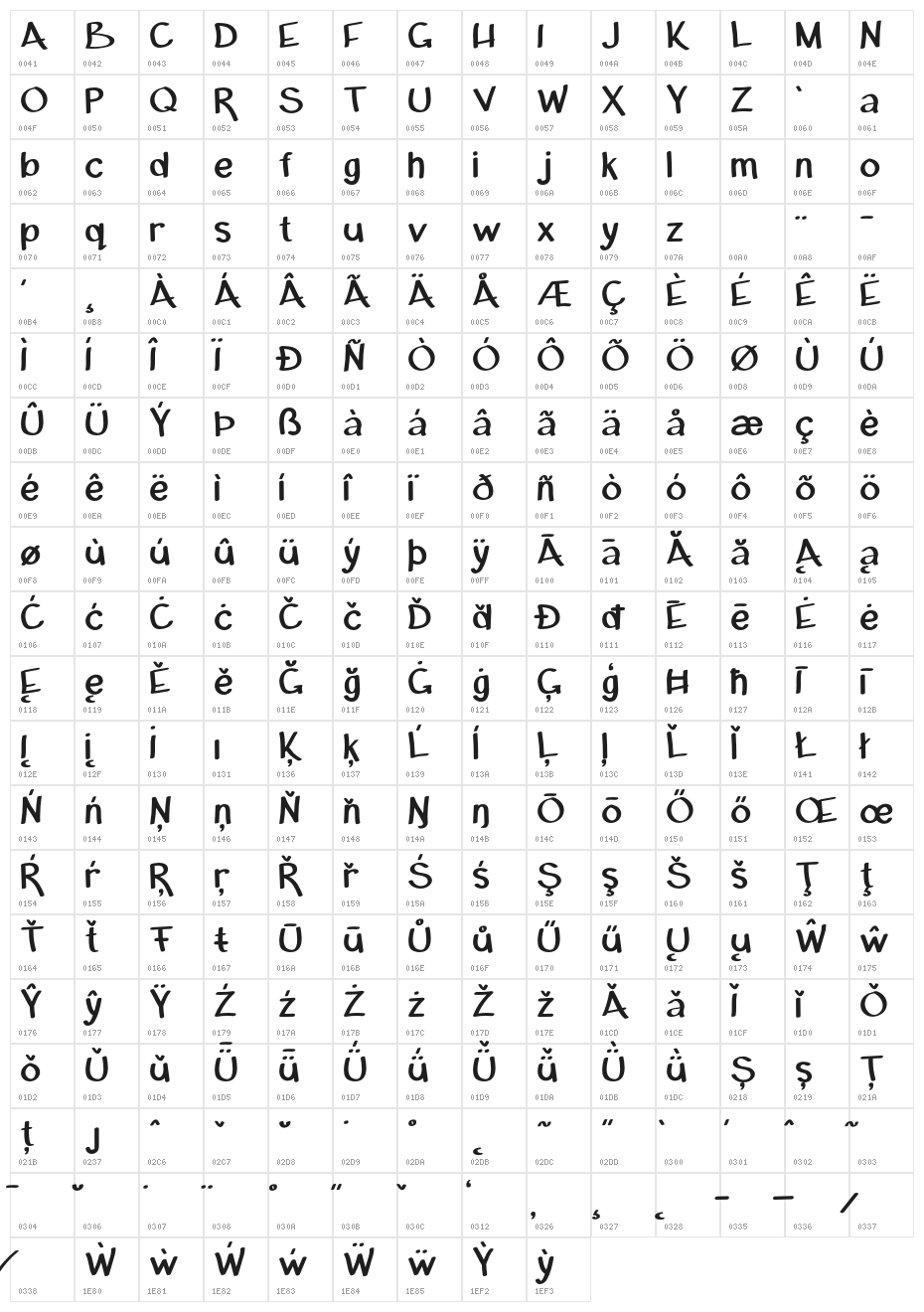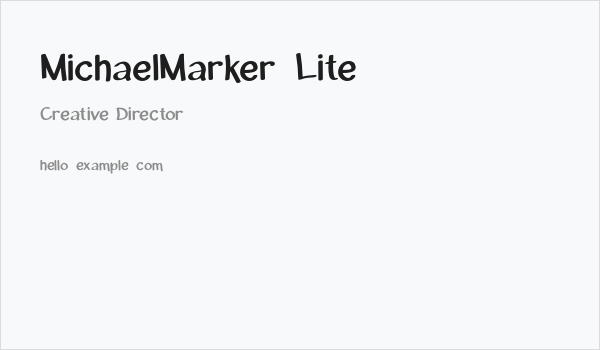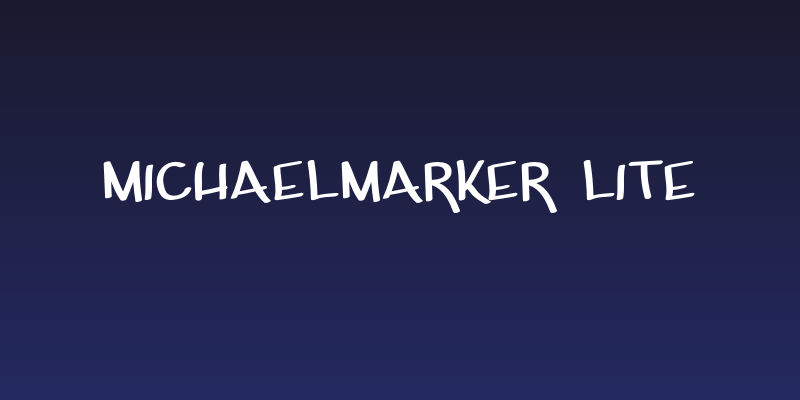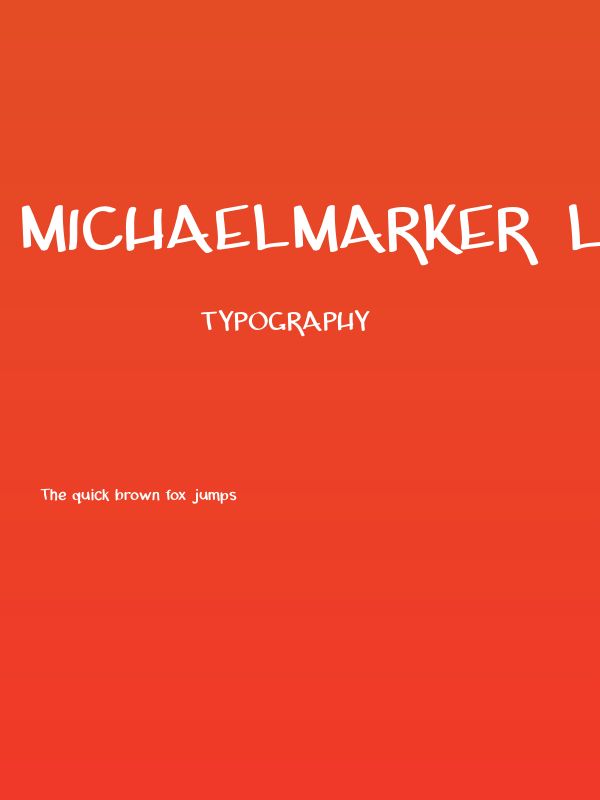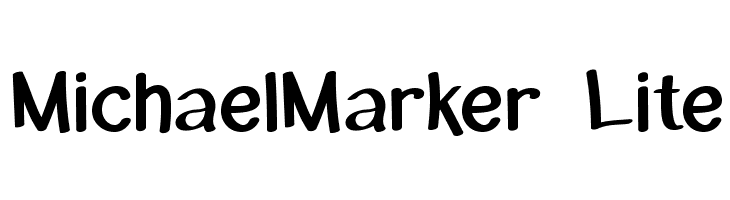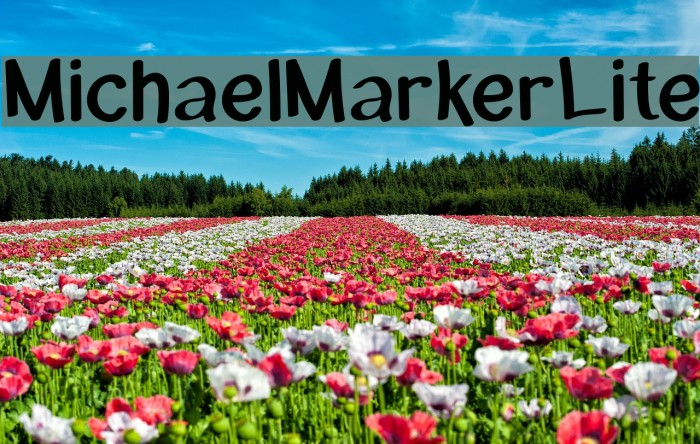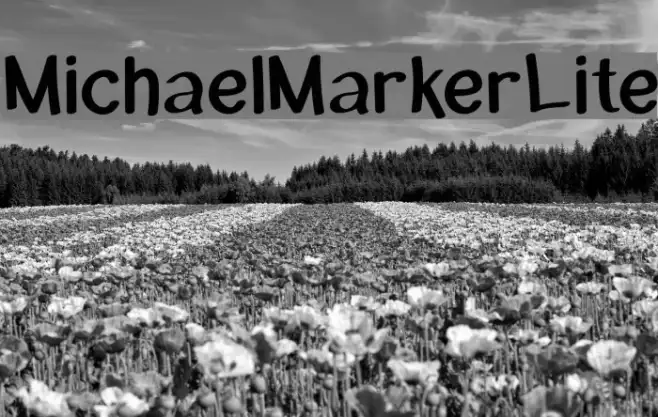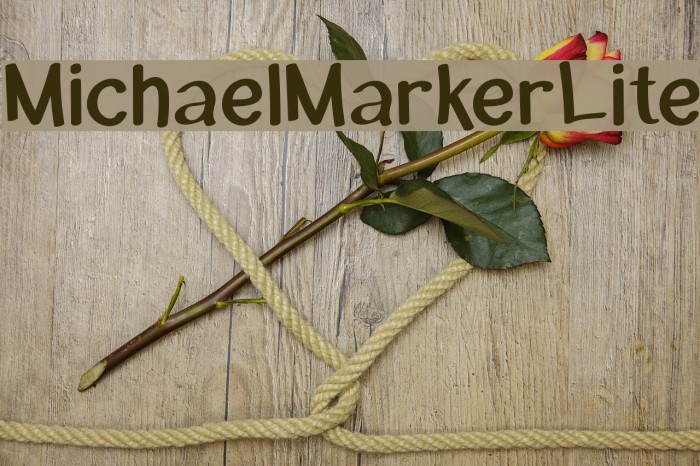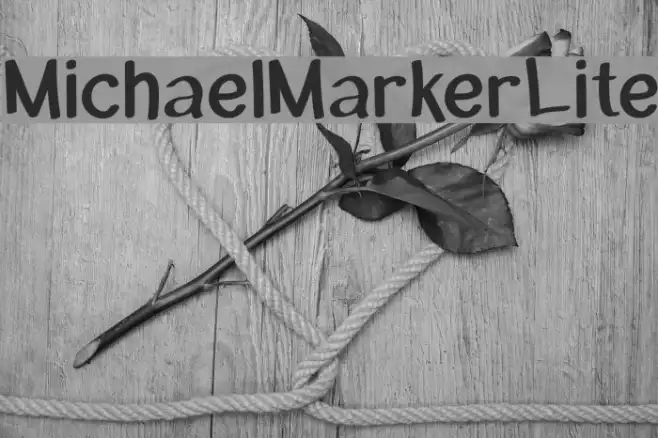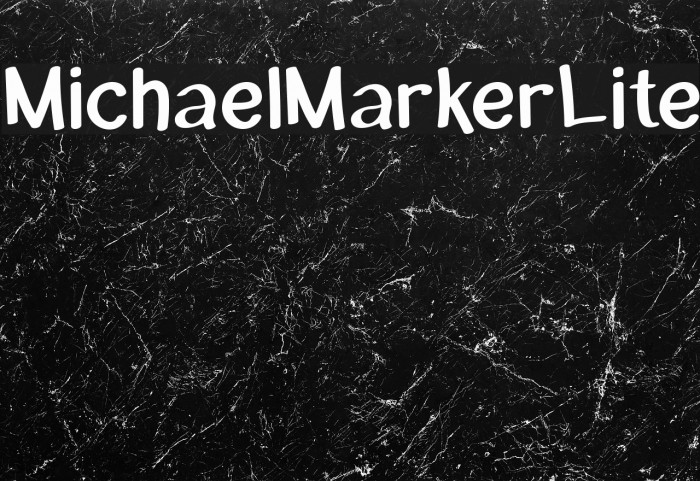
MichaelMarker-Lite Font
MichaelMarker-Lite Description
This playful and informal font exudes a handwritten charm, reminiscent of casual marker strokes. The characters are bold and slightly irregular, giving them a lively and dynamic appearance. The uppercase letters maintain a consistent height, while the lowercase letters exhibit a friendly, rounded form. The font's overall style is approachable and whimsical, making it suitable for projects that require a personal touch. The spacing between characters is normal, ensuring readability while maintaining its playful nature. The font's strokes are consistent in thickness, providing a medium contrast that enhances its legibility.
| Overall Style | Playful, Informal |
| Proposed Projects | Ideal for children's books, greeting cards, casual branding, and playful social media graphics. |